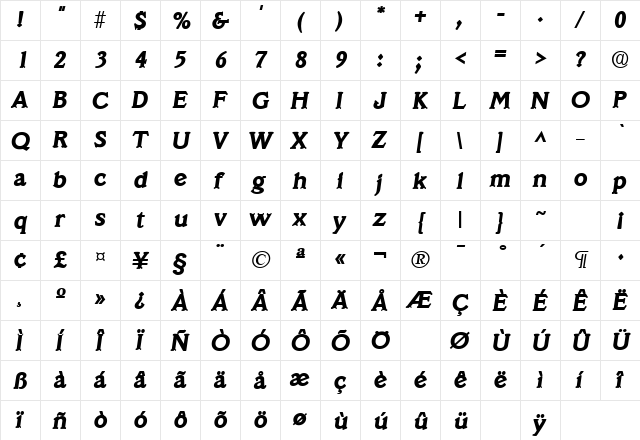
SanaCruz Heavy SF Bold Italic
Design Context for SanaCruz Heavy SF Typeface
SanaCruz Heavy SF takes a measured approach to typography — its balanced proportions and neutral character make it a reliable workhorse for both digital and print work. The slanted form adds forward momentum and visual energy. Its bold stroke weight gives it real presence on the page.
Pro Tip: Use SanaCruz Heavy SF for emphasis, pull quotes, and subheadings where its slanted energy can add rhythm to the layout.